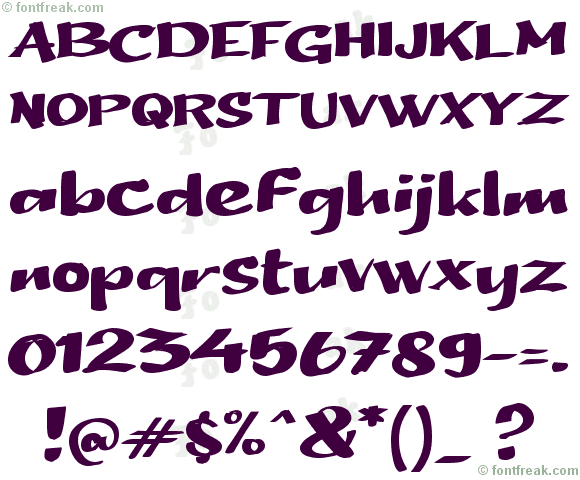
Beras Ketan
About Beras Ketan
Beras Ketan is a decorative display font designed by Wahyu Eka Prasetya that captures attention with its unique visual characteristics. This font features a playful and expressive style, characterized by its irregular strokes and a lively, hand-drawn appearance. The bold weight of the letters creates a sense of prominence, while the varying stroke contrasts add depth and personality. The spacing between characters is well-balanced, ensuring readability while maintaining its artistic flair.
Ideal for a wide range of creative projects, Beras Ketan is particularly suited for wedding invitations, where its whimsical charm can evoke a sense of joy and celebration. It also shines in the realm of children's book covers, adding a fun and approachable aesthetic that appeals to young readers. Additionally, restaurant menus can benefit from the font’s warmth and character, making dishes sound more enticing. Graphic designers will find this font useful for creating eye-catching posters, especially for events that call for a touch of creativity and vibrancy.
What sets the Beras Ketan font apart is its ability to blend fun and professionalism seamlessly. It provides a fresh take on traditional display fonts, making it an excellent choice for anyone seeking to make a memorable impression. For those interested in exploring its potential, the Beras Ketan font free download is an opportunity not to be missed.